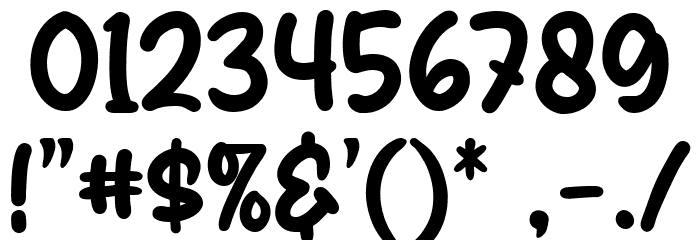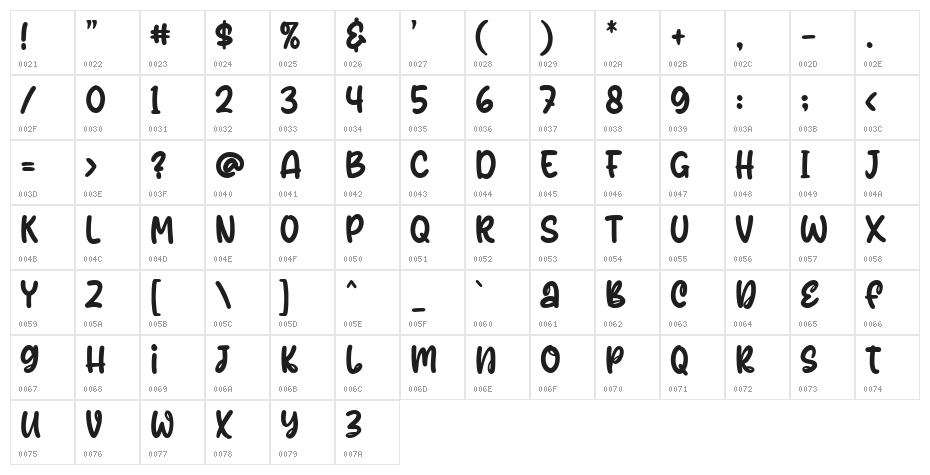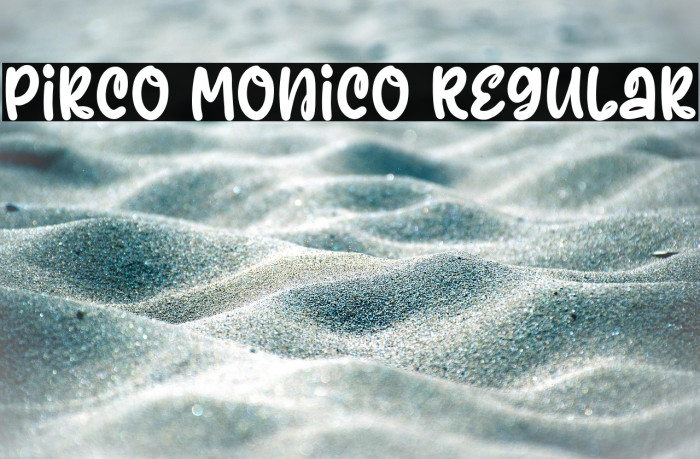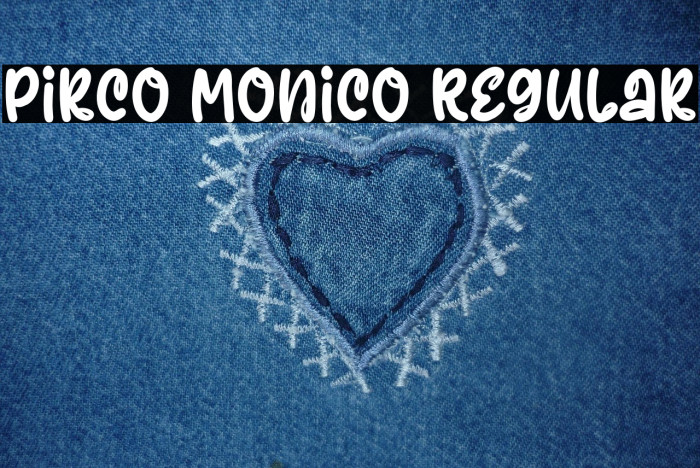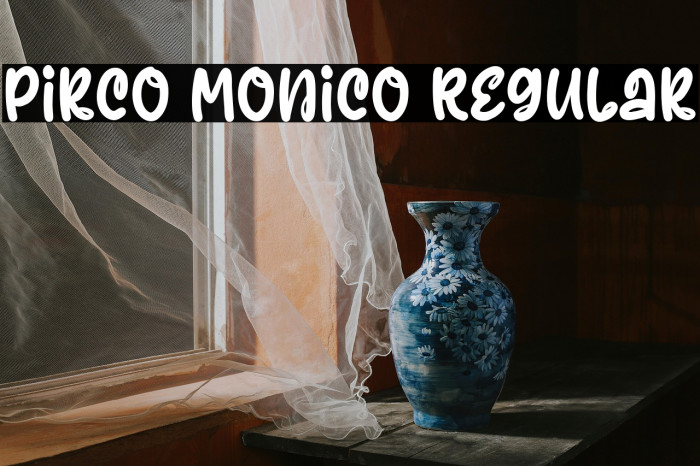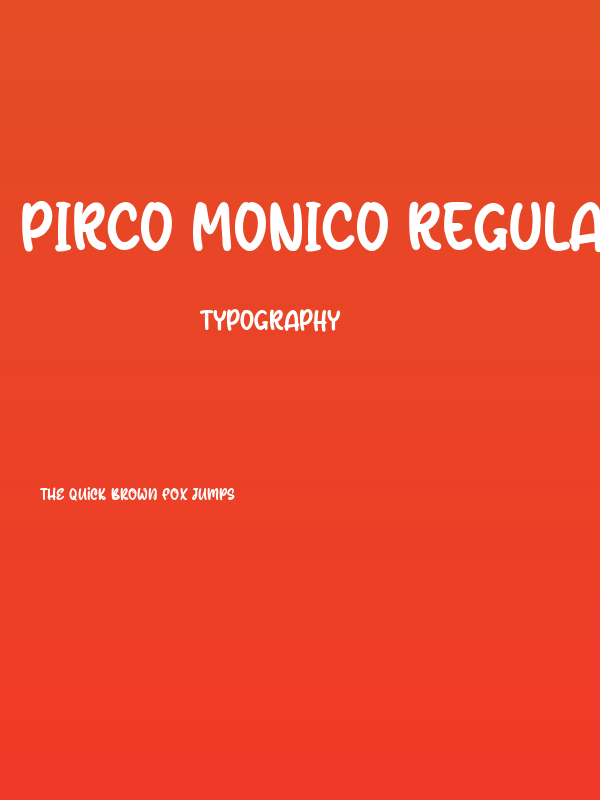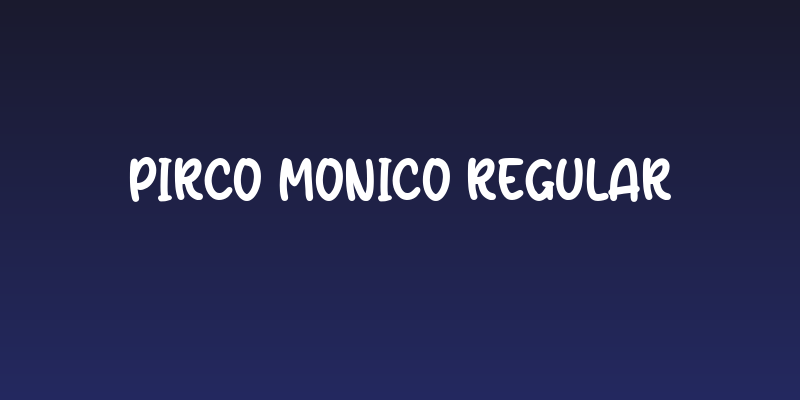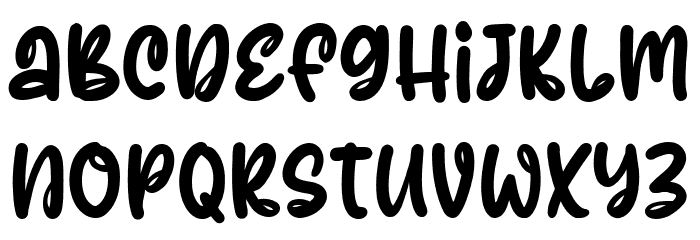
Pirco Monico Regular Font
Pirco Monico Regular Description
This font features a bold and playful handwritten style, characterized by its rounded and smooth letterforms. The uppercase and lowercase letters maintain a consistent thickness, giving it a cohesive and friendly appearance. The numerals and special characters are equally bold, ensuring readability and uniformity across different uses. The font's design is casual yet impactful, making it suitable for a variety of creative projects. Its distinct style is both approachable and energetic, appealing to audiences looking for a lively and informal typeface.
| Proposed Projects | Ideal for children's books, playful branding, greeting cards, and informal invitations. |